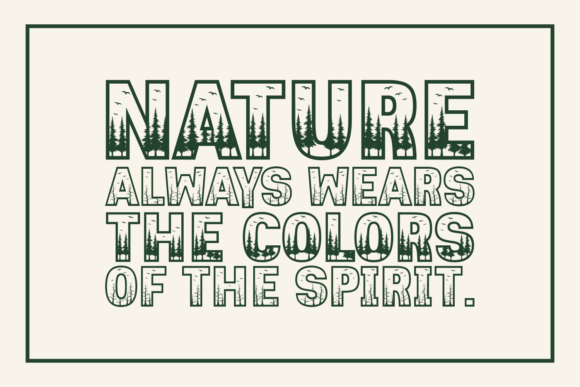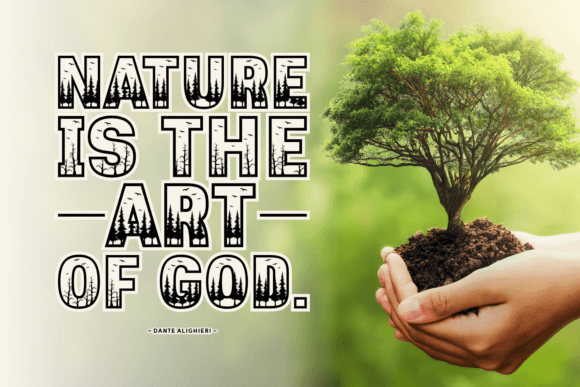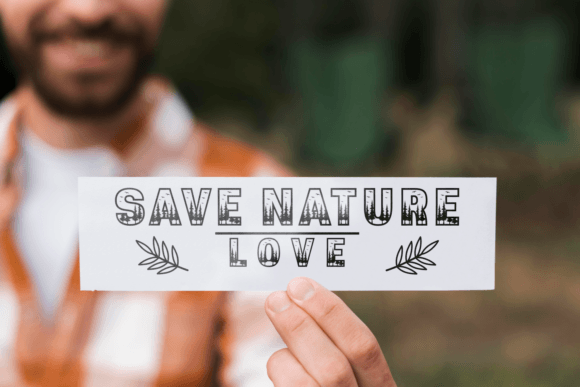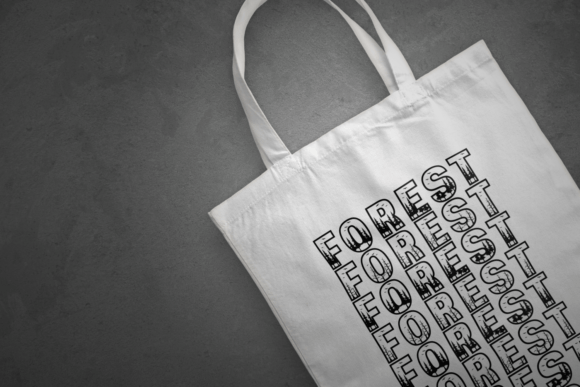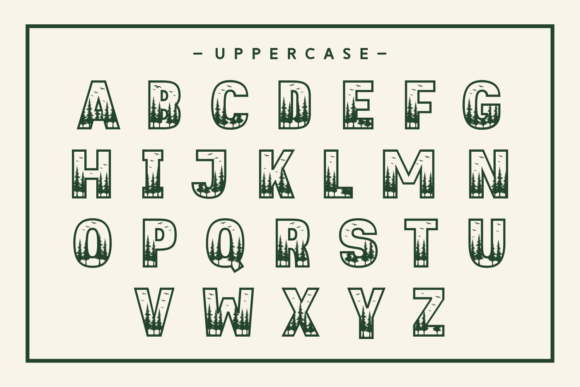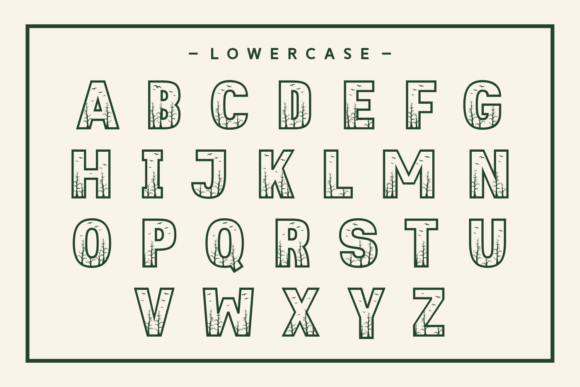
The Magic of Dark Forest Font: Elevate Your Designs with a Touch of Whimsy
I still remember the frustration of working on a project, pouring my heart and soul into it, only to hit a roadblock when it came to finding the perfect font. My client wanted something unique, something that would make their brand stand out, but I was stuck in a sea of generic fonts that all seemed to blend together. That’s when I stumbled upon the Dark Forest font, and it was like a breath of fresh air. In this article, I’ll share my love for this decorative font, its features, and how to make the most of it in your designs.
An Honest Review of Dark Forest Font
So, what makes Dark Forest font so special? Here are a few things I love about it:
- ✨ Unique and stylish: Dark Forest font adds a touch of whimsy to any design, making it perfect for creative projects.
- ✅ Ease of use: The font is easy to read and works well in a variety of contexts, from titles to logos.
- 🌈 Versatility: Dark Forest font comes in a range of styles, making it suitable for different design projects, from rustic to modern.
Of course, no font is perfect, and Dark Forest has a few quirks:
- 🤔 Limited use in body text: While Dark Forest font is amazing for titles and headings, it may not be the best choice for body text due to its decorative nature.
- ⚠️ Glyph limitations: Some users have reported issues with certain glyphs not displaying correctly, but this can usually be resolved by using OpenType features.
The Backstory of Dark Forest Font
Legend has it that Dark Forest font was inspired by the mystical forests of Eastern Europe. The font’s creator, a talented type designer, wanted to capture the essence of these enchanted woods in a font that would transport users to a world of wonder. And transport us it does, with its intricate details and whimsical feel.
| Font Name | Dark Forest Font |
| Author | Feri (7NTypes) |
| What is Dark Forest font best used for? | Dark Forest font is perfect for titles, logos, and other graphic elements where you want to add a touch of whimsy and personality. |
| Is Dark Forest font suitable for body text? | While Dark Forest font is amazing for titles and headings, it may not be the best choice for body text due to its decorative nature. |